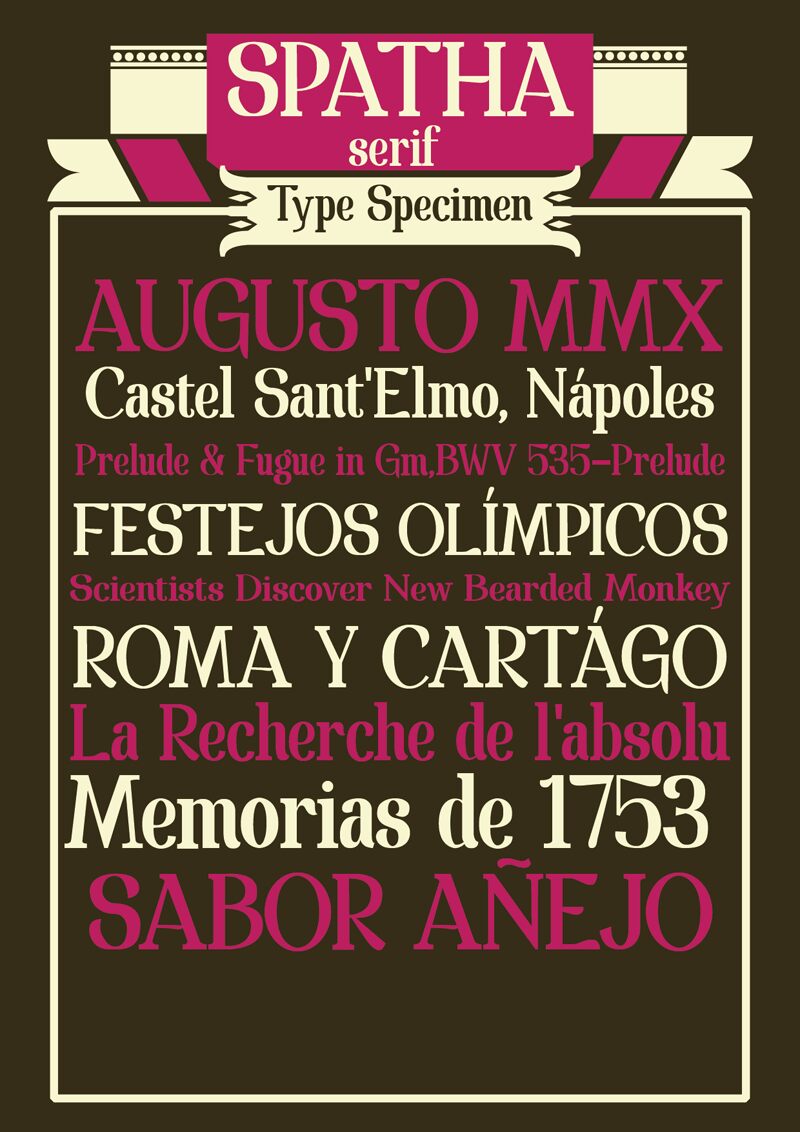
Spatha Serif by Fernando Carvente is a free high-contrast serif font with tall, commanding proportions. Broad vertical strokes meet fine hairlines and sharp, flat serifs. Its narrow curves and tightly drawn forms give the lettering a formal, slightly theatrical edge.
Fashion branding is its strongest setting, especially for perfume packaging and event posters that benefit from dramatic, elegant type. In editorial design, it can shape magazine mastheads and culture-section titles with the crisp authority of a modern Didone face.